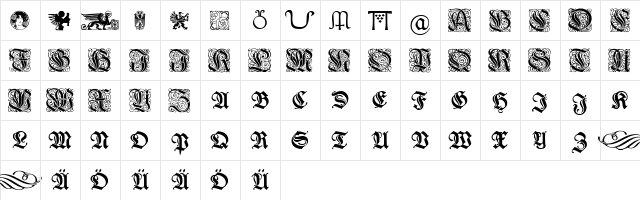
WieynkFrakturInitialen Regular
| Designer | Dieter Steffmann |
Design Context for WieynkFrakturInitialen Typeface
WieynkFrakturInitialen channels the dramatic heritage of Fraktur and Gothic scripts, bringing a sense of historical gravitas to any design.
A natural fit for music packaging, gothic editorial design, and any project that needs historical weight.
Font Pairing: Pair with a clean neutral sans-serif for body copy to let WieynkFrakturInitialen's character lead without overwhelming the composition.
Pro Tip: Reserve WieynkFrakturInitialen for display and logo use — pair it with a clean sans-serif for body copy to prevent the composition from feeling oppressive.